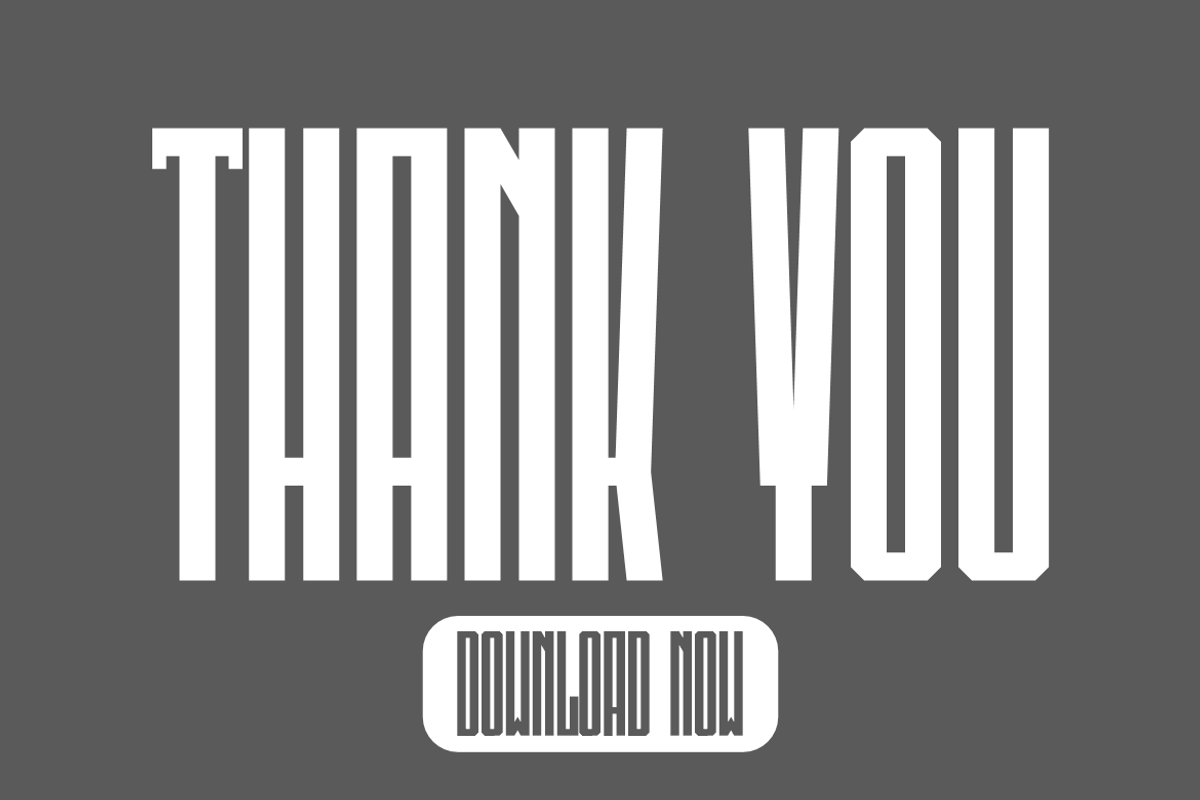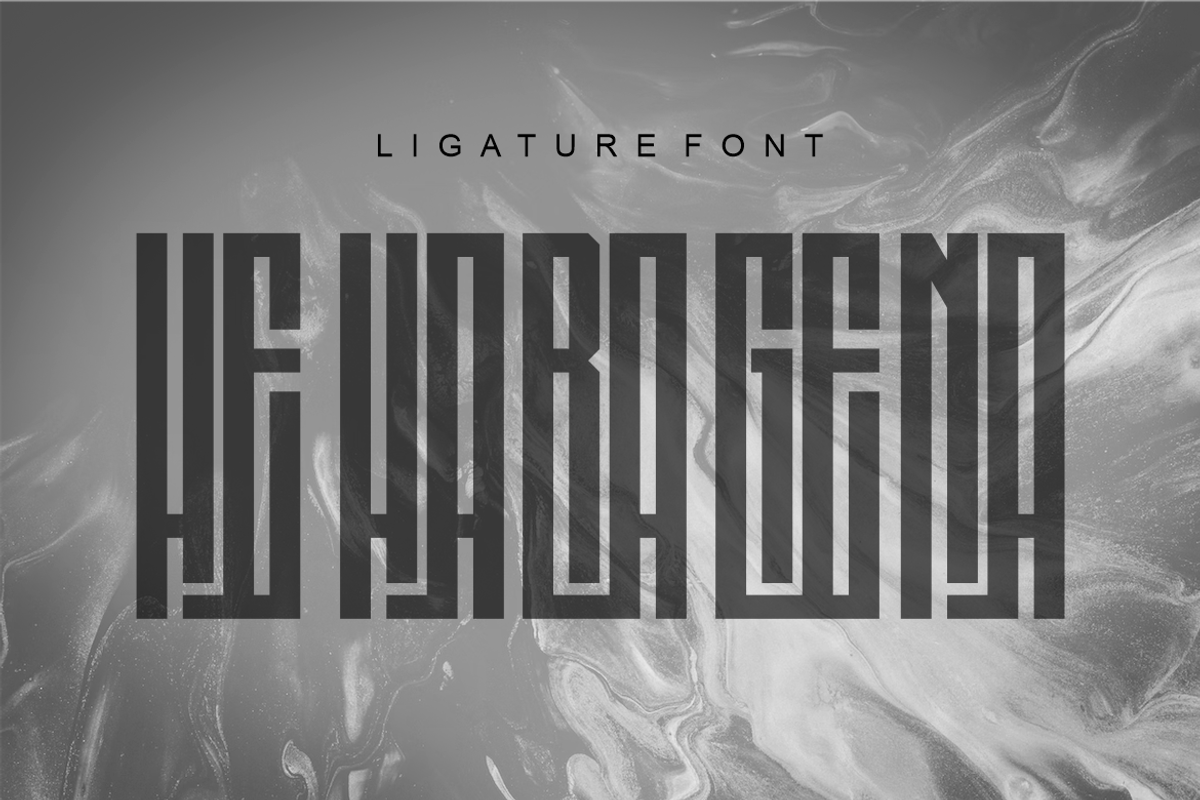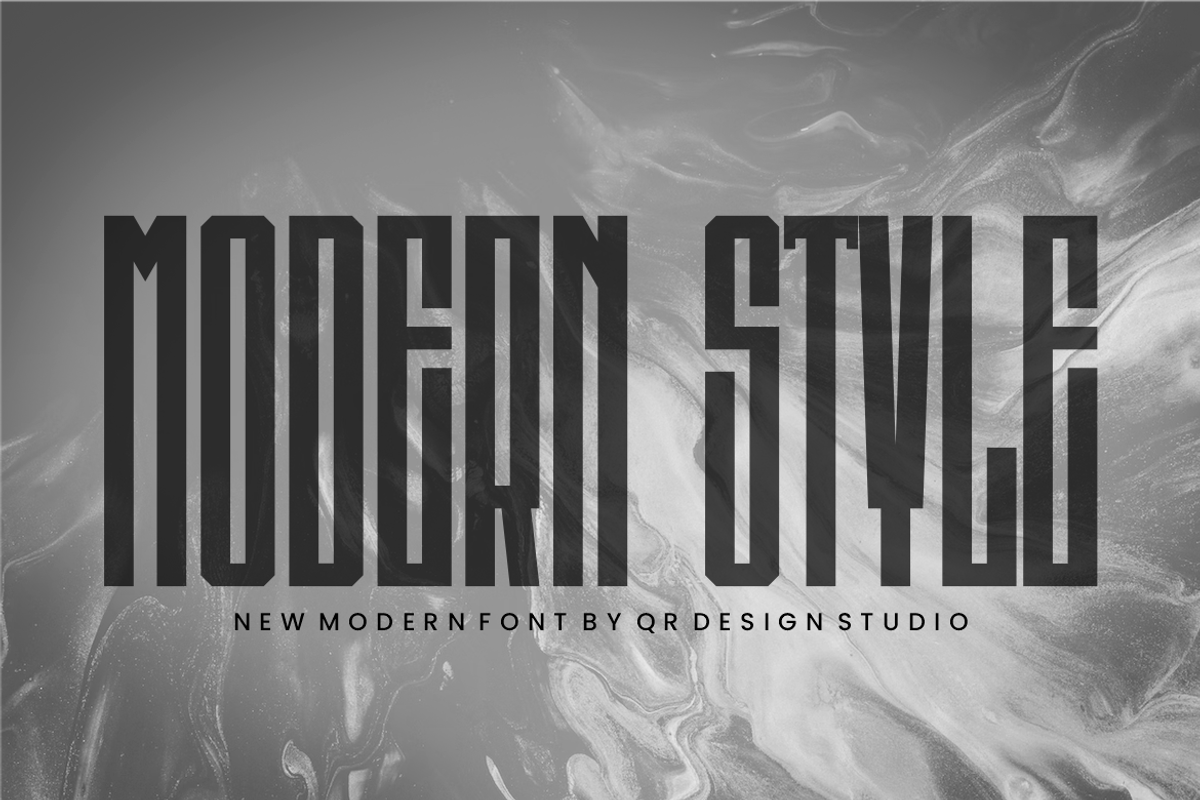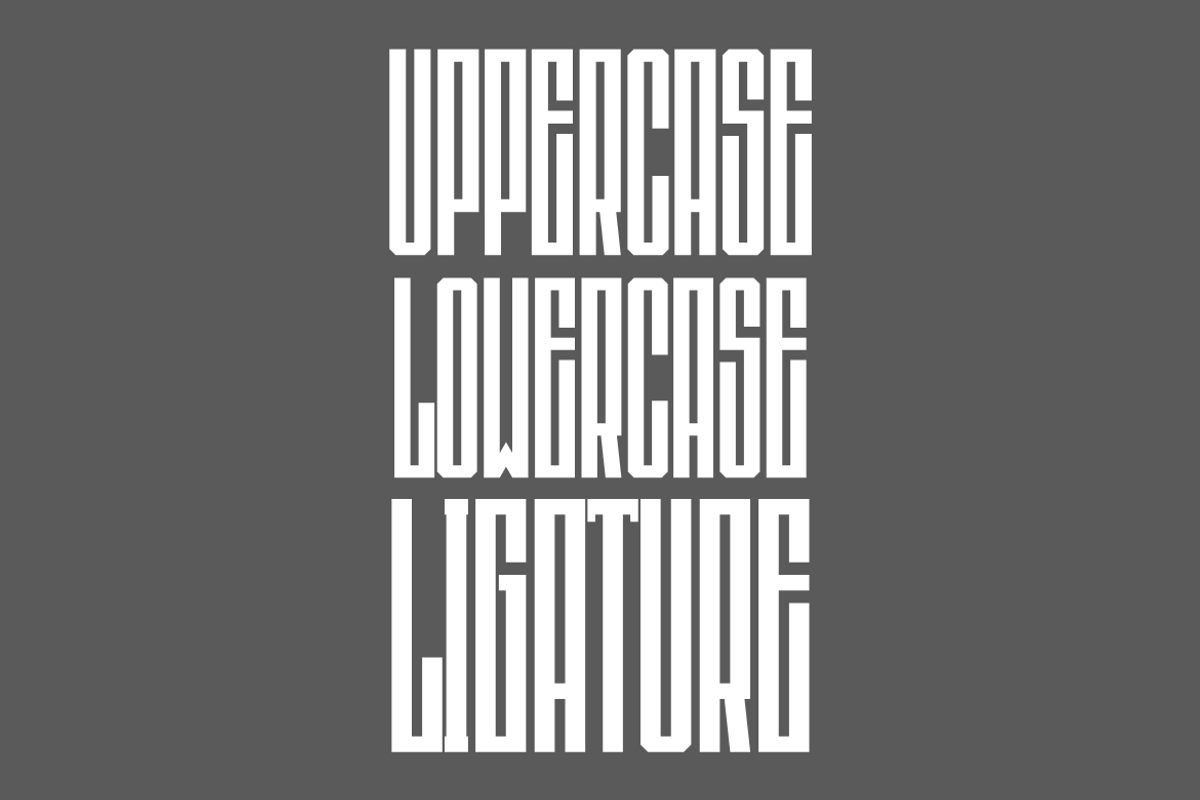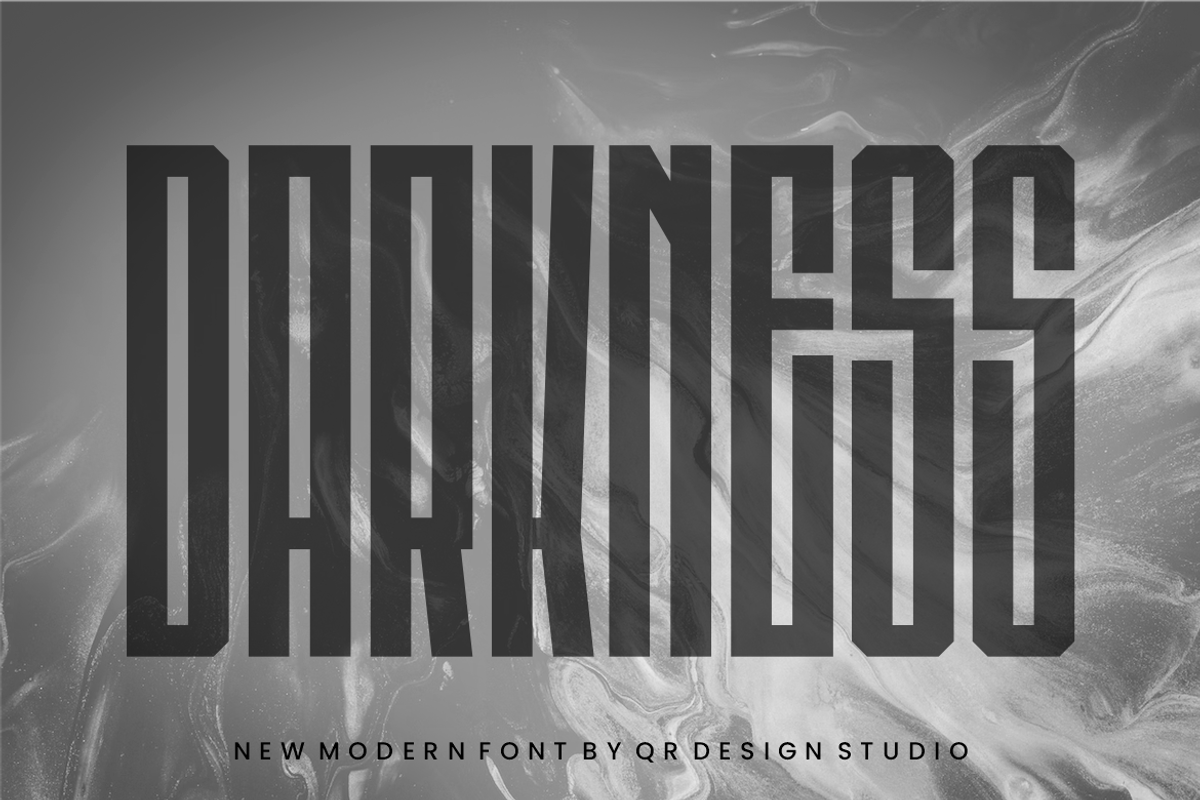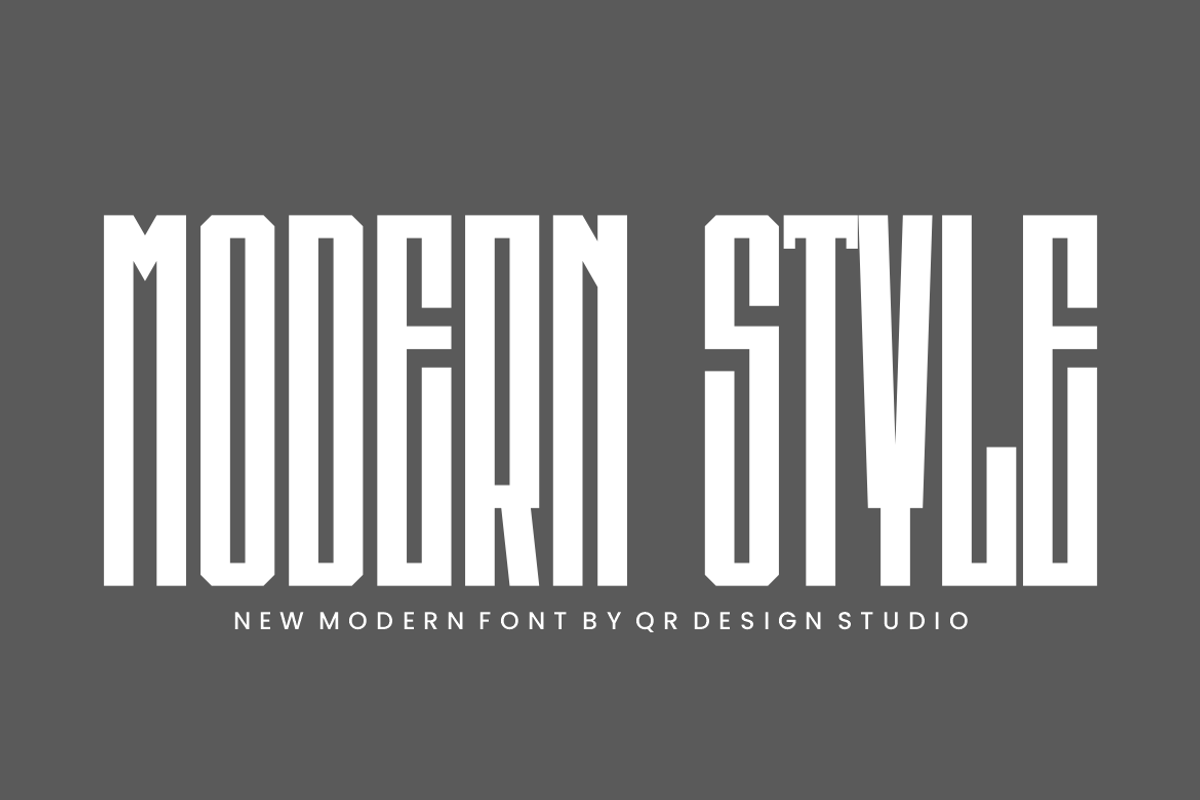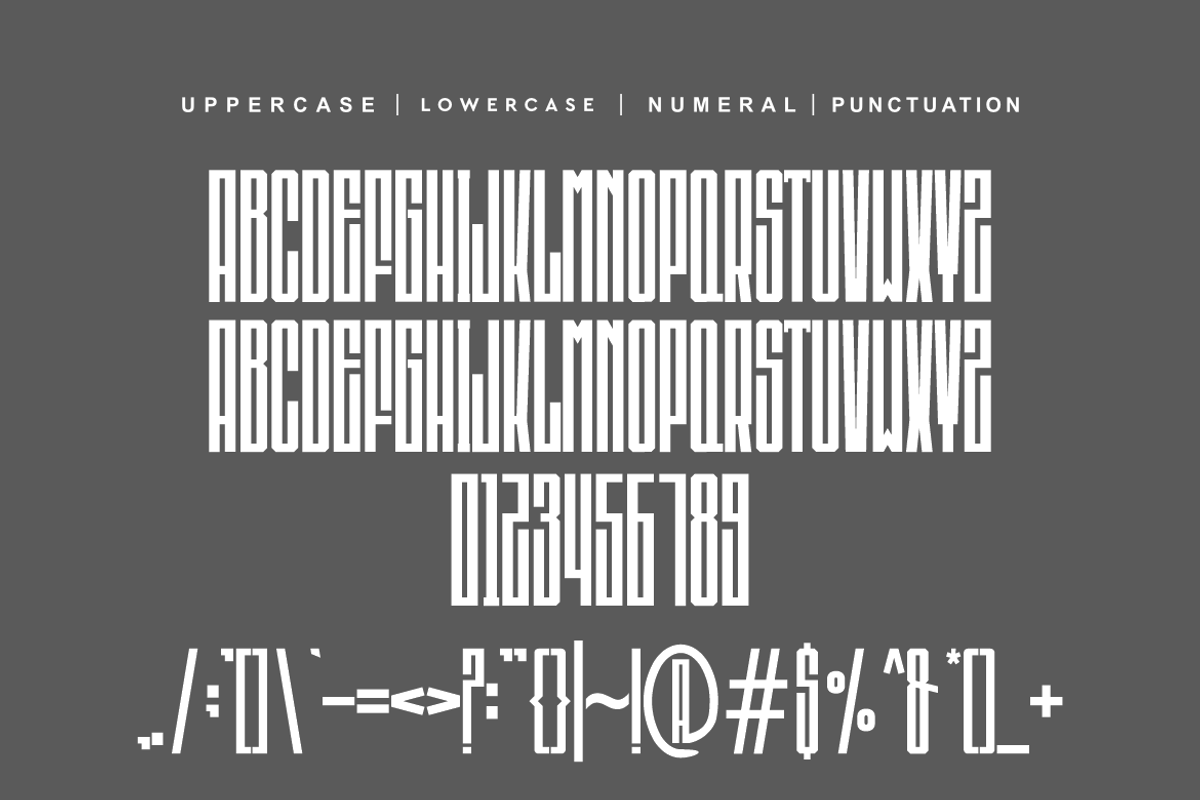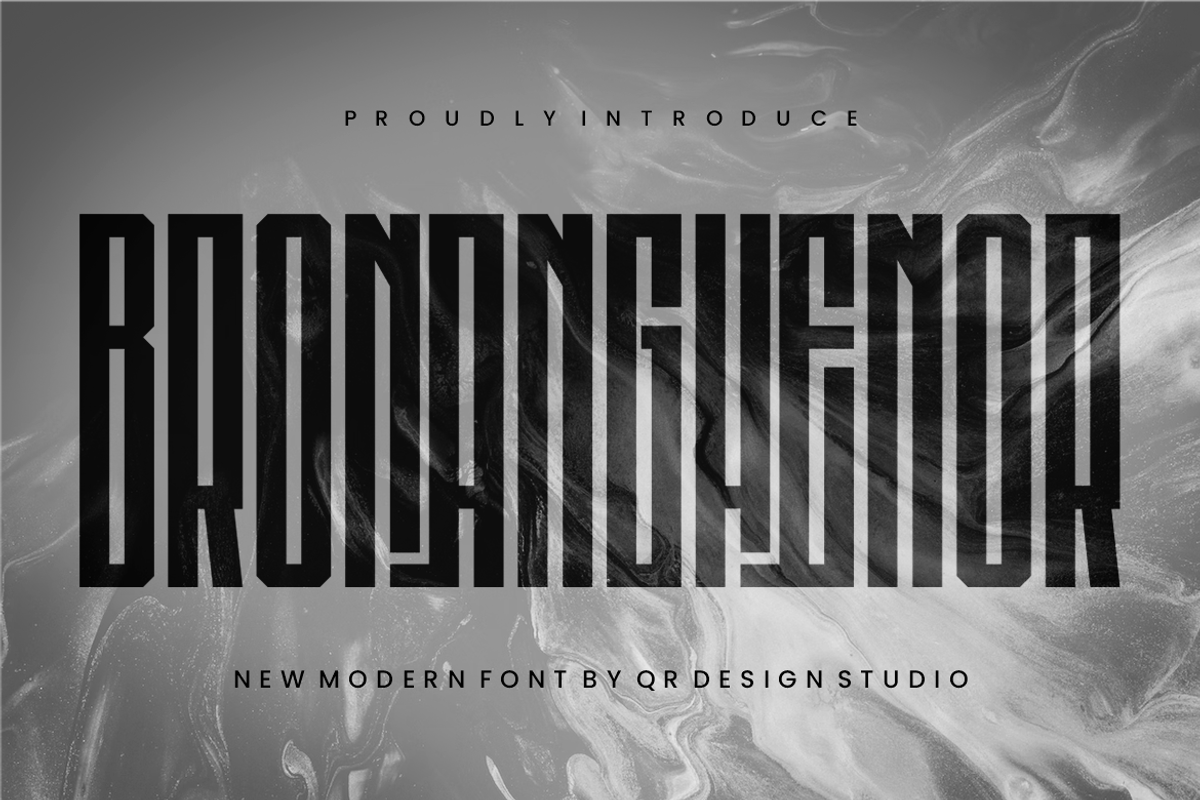
Bronanghenor
Bronanghenor Font is a bold and authentic display font. The font is suitable for any branding project like logo, sport, and many more. Outstanding in a wide range of contexts.